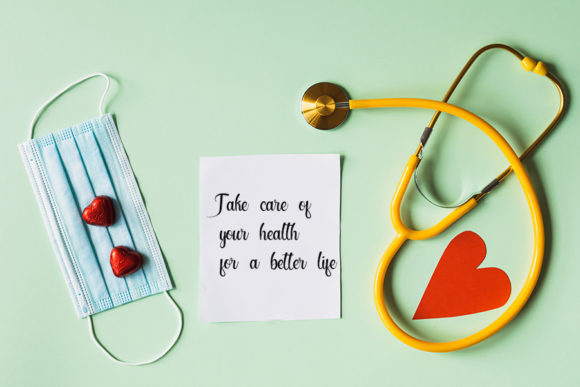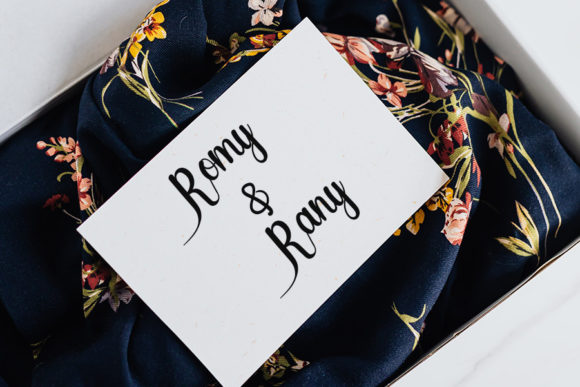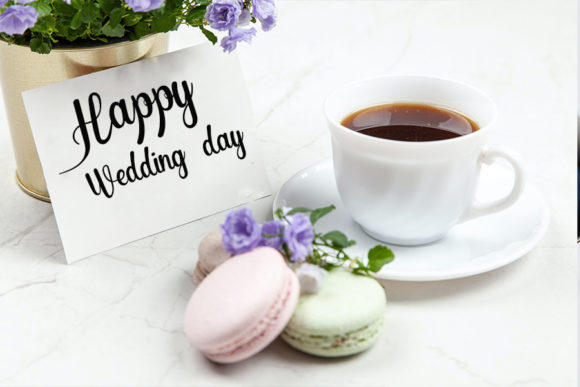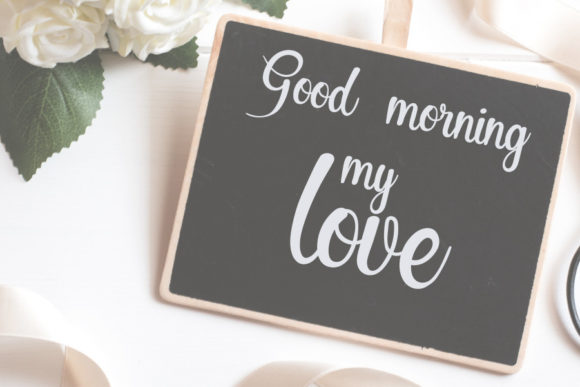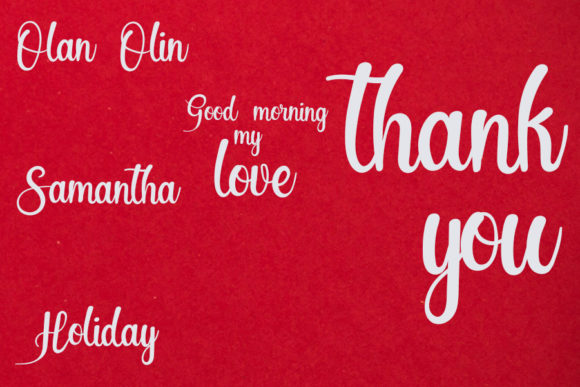
Introduction to Olan Olin Font
Have you ever been working on a creative project, pouring your heart and soul into every detail, only to find the perfect font eludes you? That’s exactly what happened to me when I was designing a campaign for a new brand. I wanted something that would capture the essence of their personality, something that would make them stand out from the crowd. And then, I stumbled upon the Olan Olin Font – a casual handwritten font that changed everything.
The Olan Olin Font is more than just a font; it’s a design resource that can elevate your projects to new heights. Its classy calligraphic influences and contemporary feel make it a versatile choice for any creative endeavor. With its high quality and transparent background, you can trust that your designs will look stunning, whether you’re working on a brochure, a website, or a social media campaign.
Key Features of Olan Olin Font
- High-quality design suitable for creative projects
- Features a transparent background for easy customization
- Designed with a unique, modern aesthetic ideal for design resources
- Perfect for use in digital designs, including logos, typography, and graphics
Honest Review: Olan Olin Font
- ✨ Elegant and modern design aesthetic that’s perfect for minimalist projects
- ✨ High-quality font files that are smooth and crisp on various devices
- ✨ Transparent background, making it easy to work with various design elements
- ⚠️ Limited character set, which may not be suitable for complex projects
- ⚠️ No bold or italic variations, which can limit its versatility
Overall, I’m impressed with the Olan Olin Font’s design and quality. While it may not be the most comprehensive font, it’s a great addition to any designer’s resource library. If you’re working on a minimalist project or need a clean, modern font, the Olan Olin Font is definitely worth checking out.
Introduction to Olan Olin Font
Olan Olin Font is a high-quality, free download font ideal for creative projects requiring a unique touch. This versatile font features a transparent background, making it perfect for overlaying on images or videos.
Tips for Getting the Most Out of Olan Olin Font
For optimal results, use Olan Olin Font on a high-contrast background to ensure readability.
Experiment with different font sizes and colors to create a unique visual effect.
Common Use Cases for Olan Olin Font
Olan Olin Font is ideal for:
Graphic design projects
Marketing materials
Wedding invitations
And more